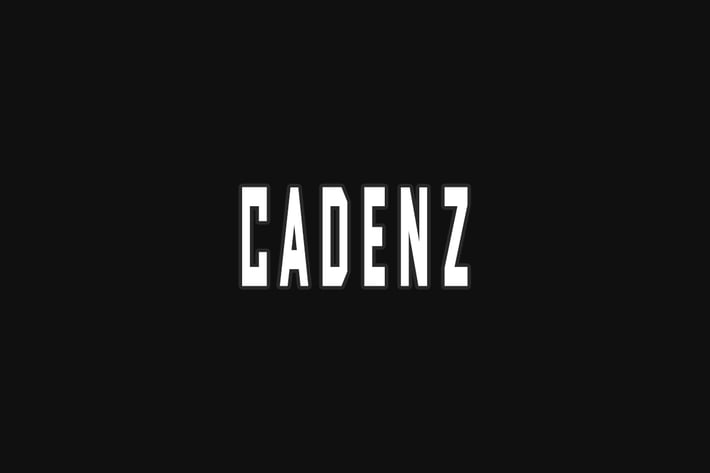
SB CADENZ - Unique Display / Logo Typeface
CADENZ is an unique typeface dedicated for branding, logotypes, marketing & display usage. This all-caps typeface is best for creating outstanding logos, promotional content and marketing graphics that can really grab attention from your visitors. Please see the examples shown above to get an idea about the capability of this typeface.
CADENZ comes with single weight and two styles (Regular & Outline) with a total of 2 fonts. The pack contains OTF, TTF and Web Fonts (all EOT, SVG, TTF, WOFF, WOFF2 everything is included).